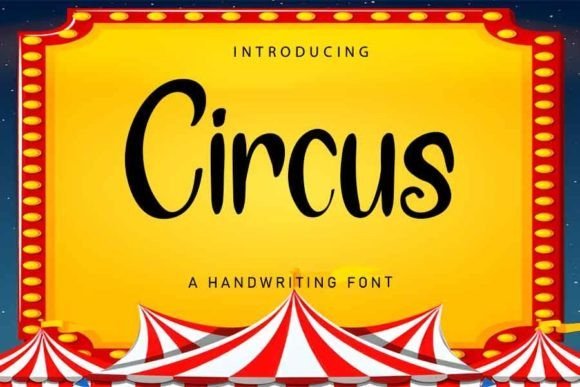
The Perfect Companion for Your Next Creative Project
There’s nothing quite like the feeling of finally landing on the perfect font for your design project. You’ve spent hours poring over font libraries, scrolling through endless options, and testing different combinations – and then, it hits you: the one that makes everything fall into place. For many designers, this moment is a mix of excitement and relief, knowing that the right font can elevate their work from good to great.
Enter the Circus Font, a relaxed and laid-back handwritten font that’s sure to be a valuable addition to your font library. With its versatility and charm, this font is the perfect companion for any creative project, from blog posts and social media graphics to branding and advertising materials. Whether you’re looking to add a touch of personality or create a more laid-back vibe, the Circus Font is here to help.
Circus Font Key Features
- Font Family: Circus Font is a sans-serif font family designed for use in digital and print media.
- Character Set: The font family includes over 200 characters, including uppercase and lowercase letters, numbers, and punctuation marks.
- Unique Characteristics: Circus Font features a bold, playful, and energetic design, making it suitable for use in circus, carnival, and entertainment-related projects.
- Font Size: The font is available in 6 different weights, ranging from Thin to Black, allowing designers to choose the perfect weight for their project.
- Resolution: The font is optimized for use at high resolutions, ensuring clear and crisp text even at large sizes.
Circus Font Review
I recently had the chance to work with the Circus Font, and I must say it’s a unique and eye-catching choice for any design project. ✨ The font’s playful and whimsical nature makes it perfect for creating a carnival-like atmosphere, which is exactly what the designer aimed for.
Here are some aspects where the Circus Font shines:
- ✨ Its versatility in different font sizes and weights allows for a wide range of applications.
- ✨ The font’s organic feel and imperfections give it a human touch that’s hard to find in other digital fonts.
- ✨ It’s highly legible, even at small font sizes, making it suitable for various text-based designs.
- ⚠️ The font may not be suitable for formal or professional projects due to its playful nature.
- ⚠️ Some characters, such as the lowercase ‘a’ and ‘g’, may not be easily recognizable, which could lead to miscommunication.
Overall, the Circus Font is a great choice for designers looking to add a touch of whimsy and fun to their projects. While it may have some limitations, its unique qualities make it a valuable addition to any design library.
Tips for Getting the Most Out of Circus Font
Use the Circus Font for eye-catching titles, headings, and graphics. Experiment with different font sizes and colors to create a unique visual effect. Combine the Circus Font with other bold fonts to create a striking visual contrast.
The Circus Font is ideal for creating attention-grabbing titles, headings, and graphics for events, parties, and festivals. It’s also suitable for creating bold and playful graphics for social media, advertising, and branding.
Compared to Circus Font, Great Vibes has a more refined and polished look, making it suitable for a wider range of design applications. While Circus Font is often associated with a more playful and childlike aesthetic, Great Vibes has a more mature and sophisticated feel.
Alex Brush is a elegant, handwritten script font that’s perfect for adding a touch of sophistication and elegance to your designs. It’s ideal for use in titles, headings, and other text elements where you want to convey a sense of refinement and culture.
Q: Is Circus Font optimized for digital use?
Yes, Circus Font is designed to perform well in digital environments. The font is optimized for on-screen reading, with features such as hinted glyphs, precise kerning, and a robust character set. This ensures a crisp and clear display across various digital platforms.